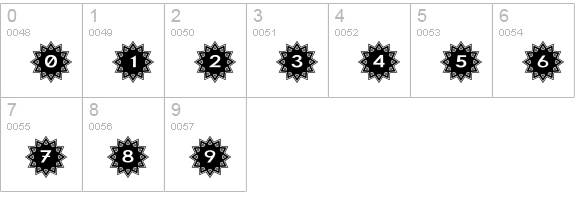
Stargit Font Details
Introducing Stargit, a captivating and modern font that will take your designs to new heights. With its sleek and stylish appearance, Stargit is perfect for adding a touch of sophistication to any project. Whether you're designing a logo, creating a stunning poster, or crafting eye-catching social media posts, this font is sure to make a lasting impression. What makes Stargit truly stand out is its versatility. From bold headings to elegant body text, this font effortlessly adapts to various design needs. Its clean lines and well-defined shapes give it a contemporary edge, while its subtle curves add a hint of playfulness. Stargit strikes the perfect balance between professionalism and creativity, making it an ideal choice for both corporate and artistic endeavors. One of the best things about Stargit is that it is absolutely free! That's right, this incredible font can be freely downloaded at FontsMarket.com. So, you can enjoy the benefits of this stunning font without having to worry about breaking the bank. It's the perfect opportunity to enhance your designs with a high-quality font without having to compromise on budget. With Stargit, you can let your imagination run wild and create designs that truly shine. So why wait? Head over to FontsMarket.com and start exploring the endless possibilities that Stargit has to offer. Elevate your designs and make a statement with this captivating font that is just a download away.